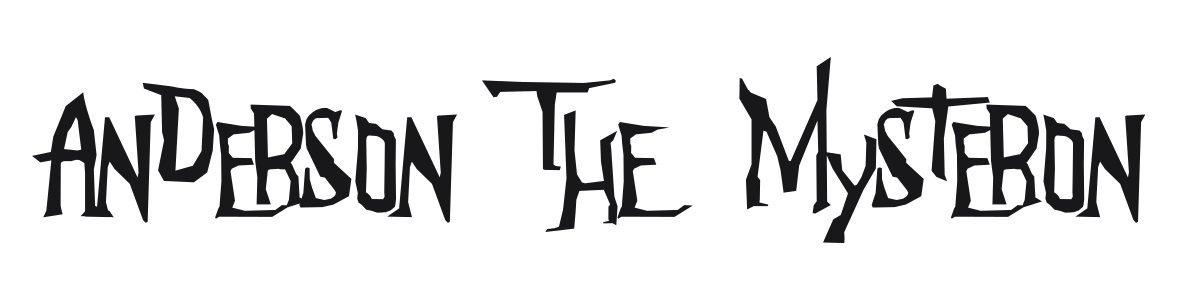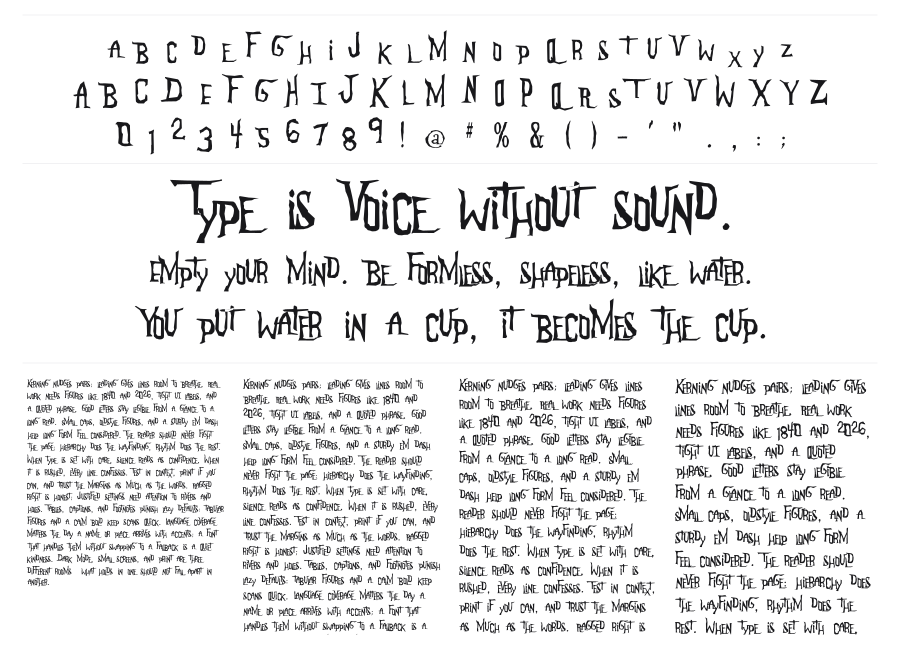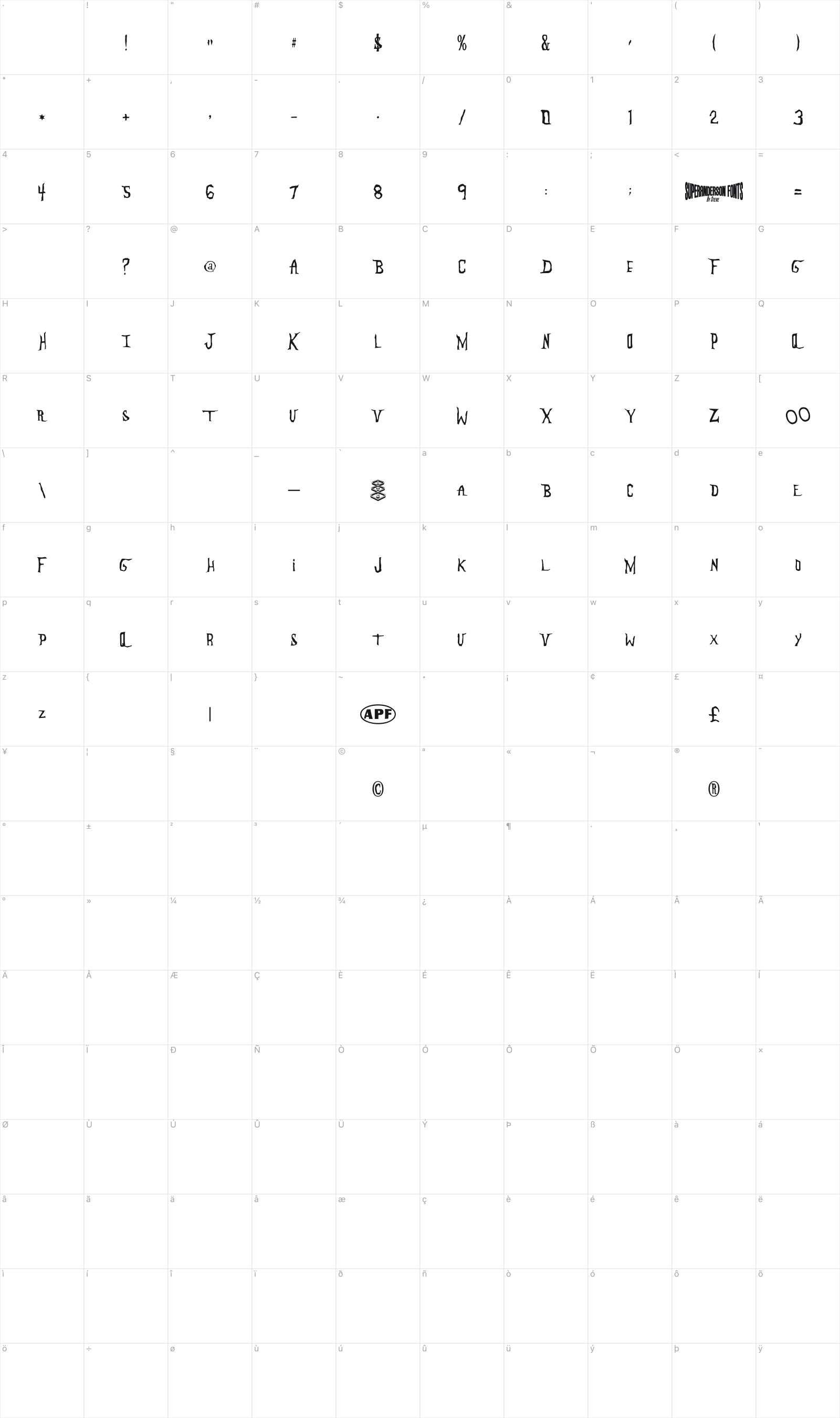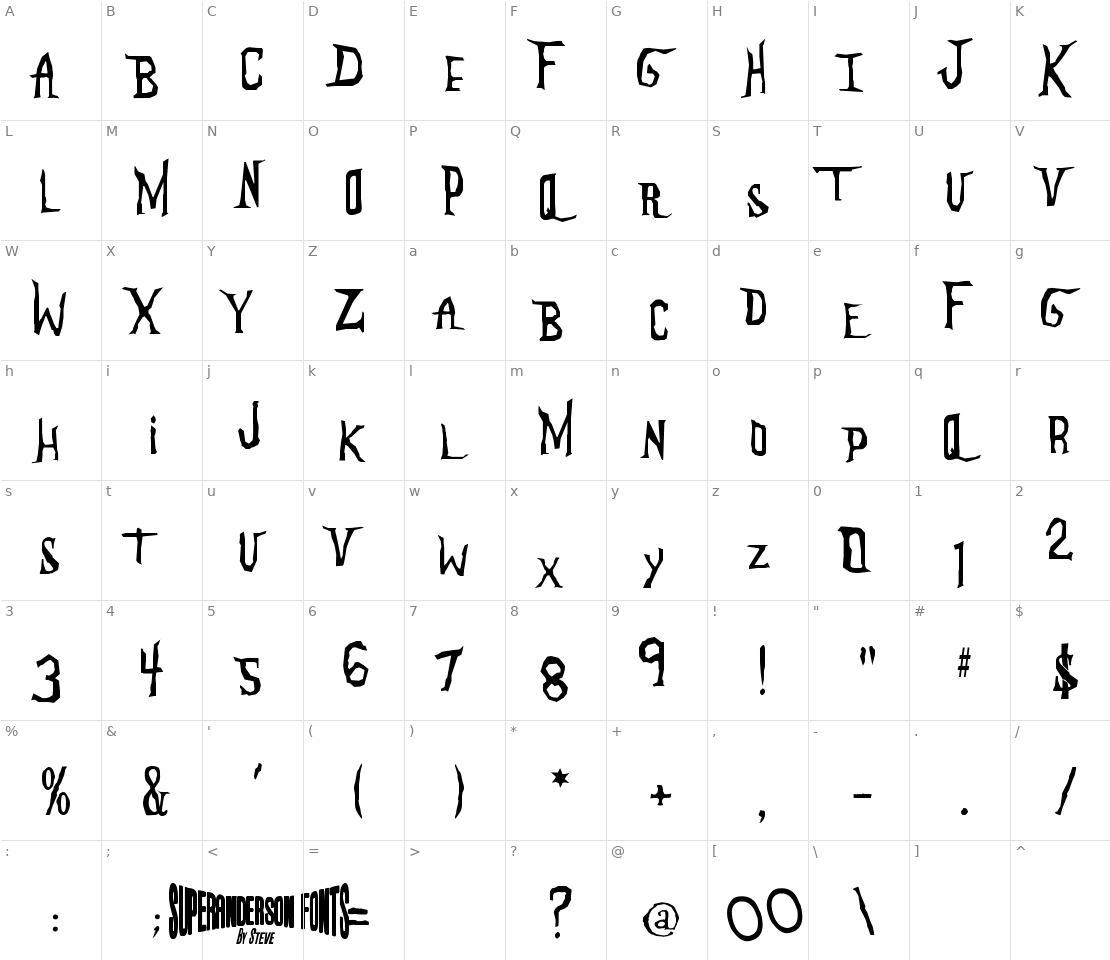
Anderson The Mysteron
by Steve Ferrera
Anderson The Mysteron is a jagged, irregular display face from Steve Ferrera with letterforms that twist and distort like something glimpsed in a fever dream. The angular, uneven strokes give it a creepy, unsettling quality that makes it a natural pick for Halloween graphics, horror posters, and dark-themed branding. Best kept to headlines and short text where the distortion reads as intentional menace rather than noise.